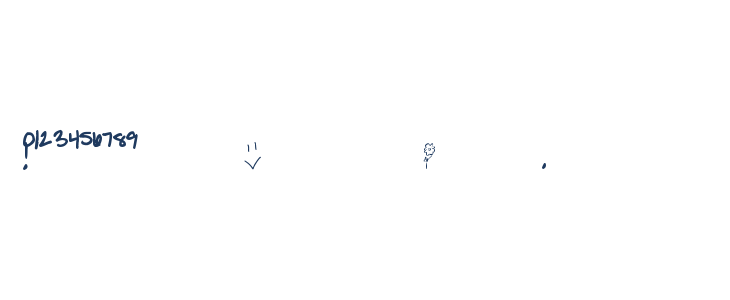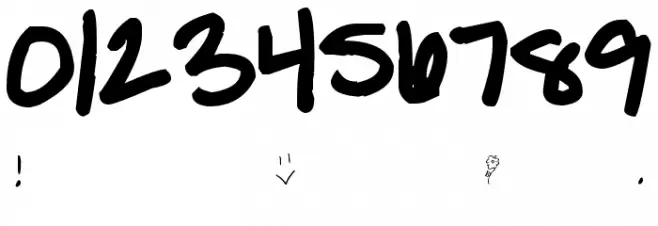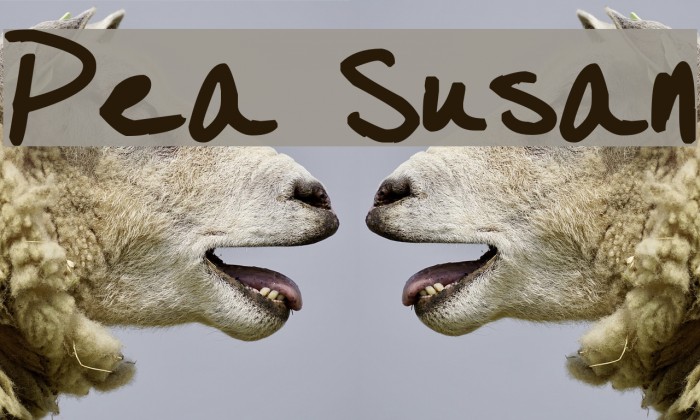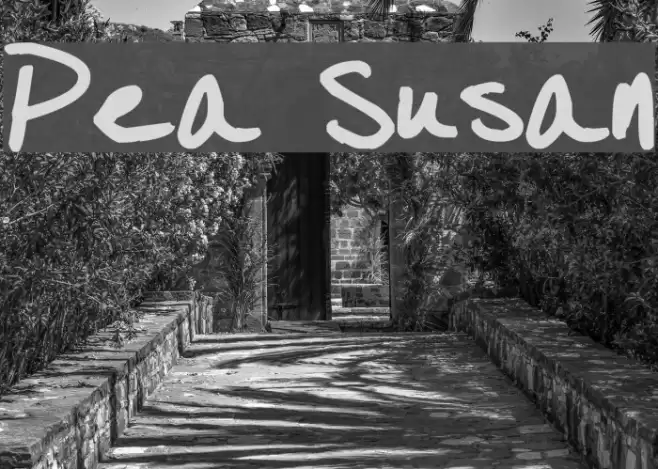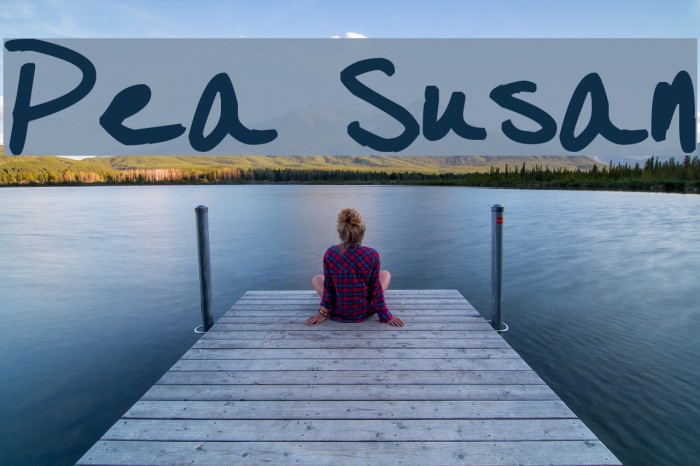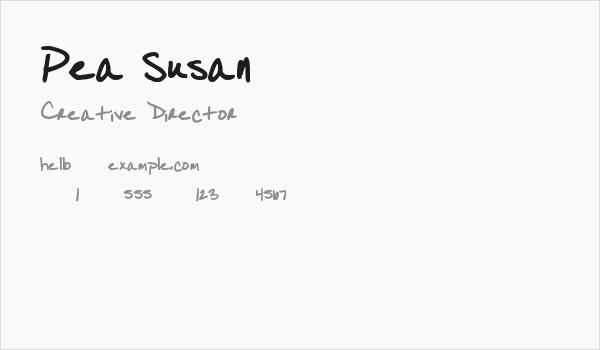
Pea Susan Font
Pea Susan Description
This font exudes a casual and playful handwritten style, characterized by its bold and expressive strokes. The letters are slightly irregular, giving it a personal and informal feel, reminiscent of a quick, yet deliberate, handwritten note. The uppercase and lowercase letters maintain a consistent style, with rounded edges and varying stroke thickness that adds to its charm. The numbers and special characters follow the same aesthetic, ensuring a cohesive look across all elements. This font is ideal for projects that require a touch of personality and warmth, making it suitable for creative and informal contexts.
| Proposed Projects | Ideal for greeting cards, personal blogs, creative posters, and informal branding. |